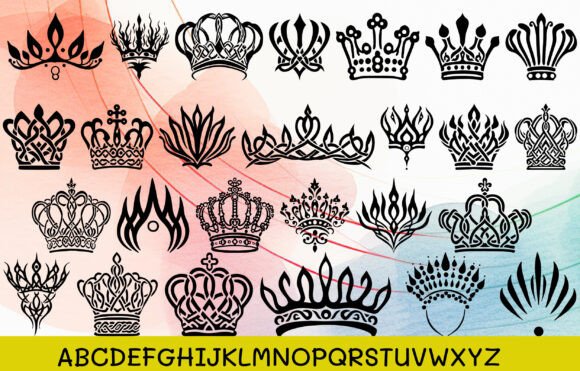
Crown Celtic Tribal Font: Elevate Your Designs with Regal Flair
Are you a designer or crafter looking for a unique and eye-catching font to add a touch of Celtic flair to your creative projects? Look no further than the Crown Celtic Tribal Font, a stunning set of 26 tribal crown designs inspired by the intricate artistry of the Celts. In this article, we’ll dive into the details of this exceptional font and explore how it can elevate your designs.
What is Crown Celtic Tribal Font?
The Crown Celtic Tribal Font is a specially crafted dingbats font featuring 26 unique tribal crown designs, each corresponding to a letter from A to Z. This font is perfect for designers and crafters seeking to add a regal touch to their projects, whether it’s a logo, title, or decorative element. The font’s Celtic-inspired designs are intricately detailed, making it an excellent choice for those who appreciate the beauty of Celtic art.
Key Features of Crown Celtic Tribal Font
- 26 Unique Designs: Each letter from A to Z features a distinct tribal crown design, offering a wide range of creative possibilities.
- Celtic Inspiration: The font’s designs are inspired by traditional Celtic artistry, characterized by intricate patterns and knotwork.
Creative Applications of Crown Celtic Tribal Font
The Crown Celtic Tribal Font is versatile and can be used in a variety of creative projects, including:
- Logos and Branding: Add a touch of Celtic elegance to your logo or brand identity.
- Stationery and Invitations: Create eye-catching invitations, greeting cards, and stationery with a regal flair.
- Tattoos and Body Art: The font’s tribal designs make it an excellent choice for tattoo artists or those looking for inspiration for body art.
- Web Design: Use the font to create stunning headers, titles, or decorative elements for your website.
Benefits of Using Crown Celtic Tribal Font
By incorporating the Crown Celtic Tribal Font into your designs, you’ll enjoy several benefits:
- Unique Designs: The font’s exclusive tribal crown designs will set your projects apart from others.
- Celtic Inspiration: Add a touch of Celtic heritage to your designs, perfect for those who appreciate the culture.